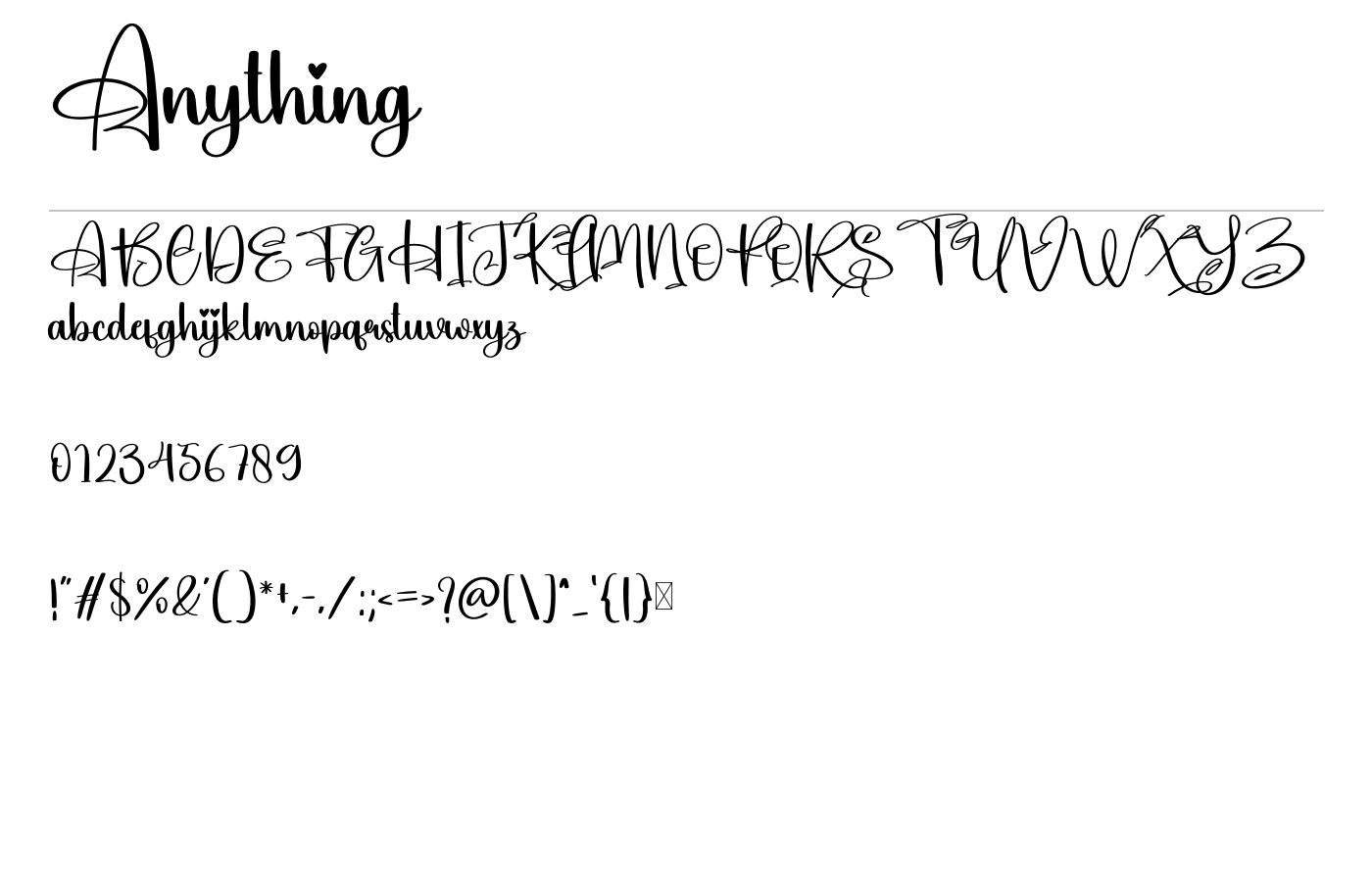
Anything Font is a lively and elegant script typeface with a playful, handwritten feel. Its delicate strokes and charming loops give it a personal, whimsical touch, making it perfect for creative projects like invitations, branding, and decorative headlines that seek a friendly yet refined vibe. This font works well where a dynamic, artistic expression is desired, adding a unique flair without sacrificing readability.
Anything Font